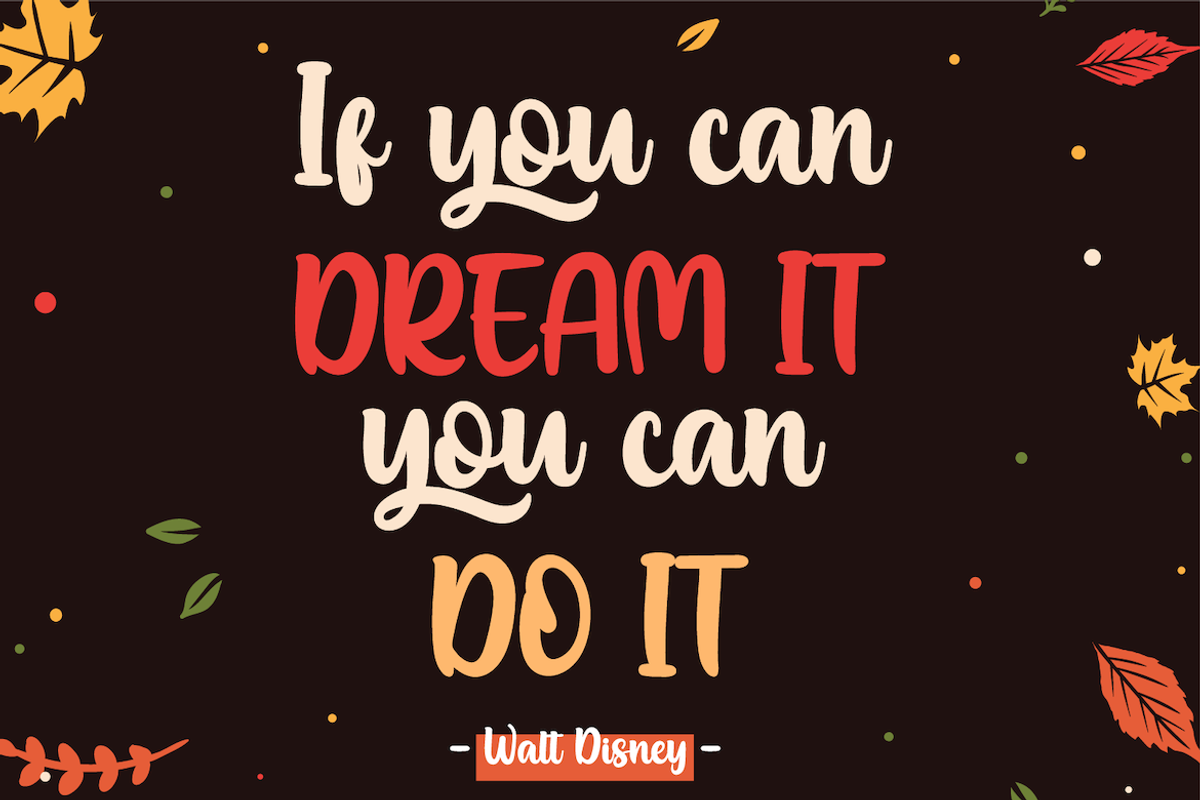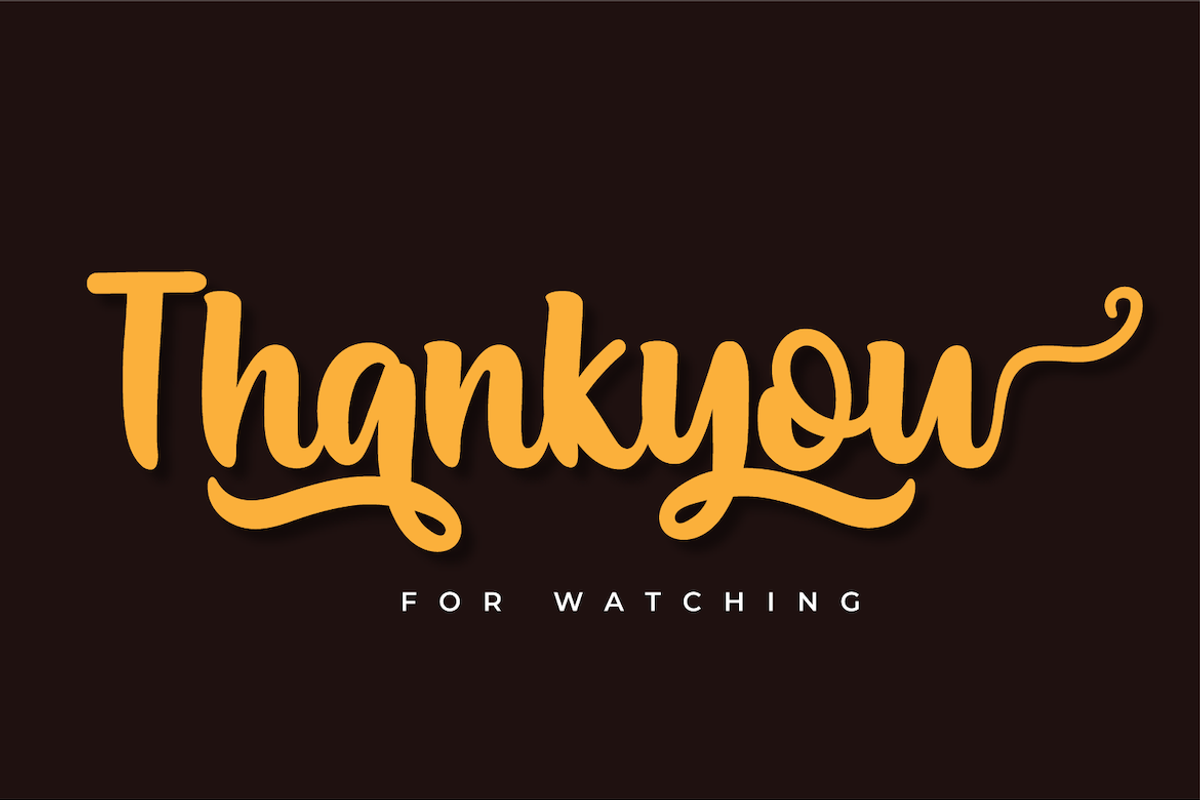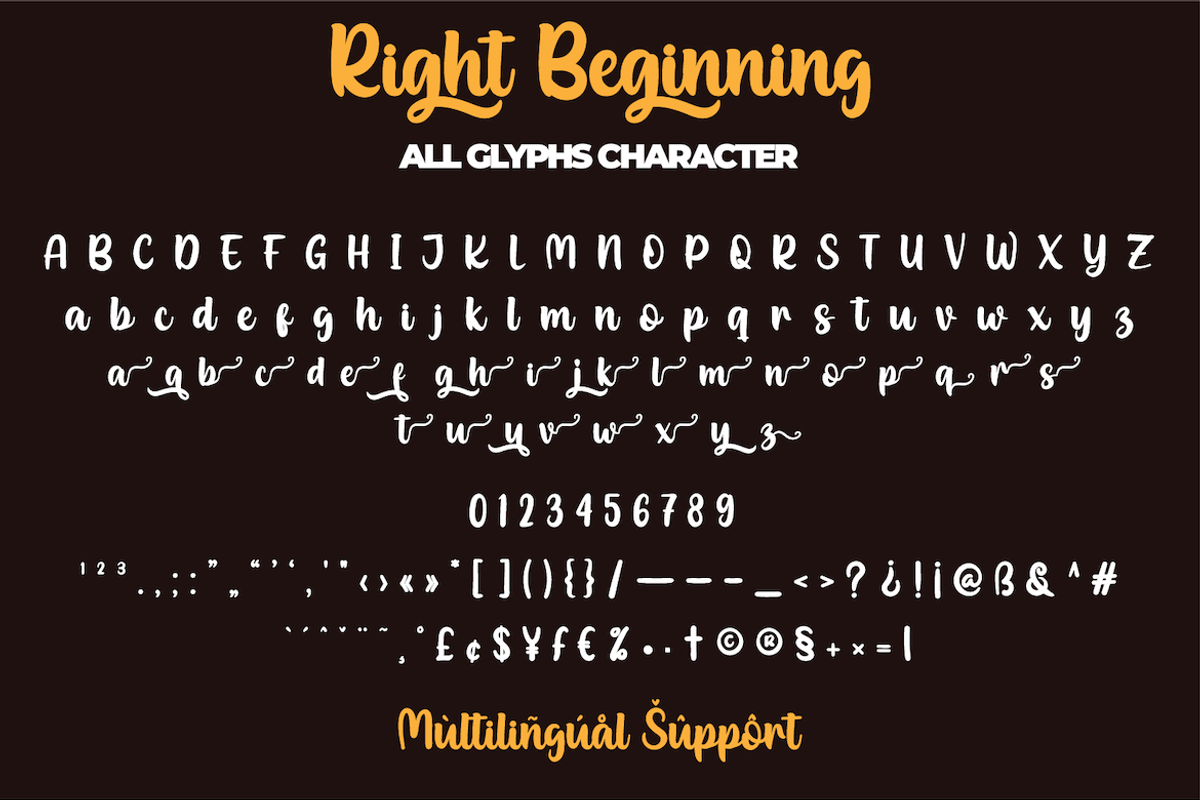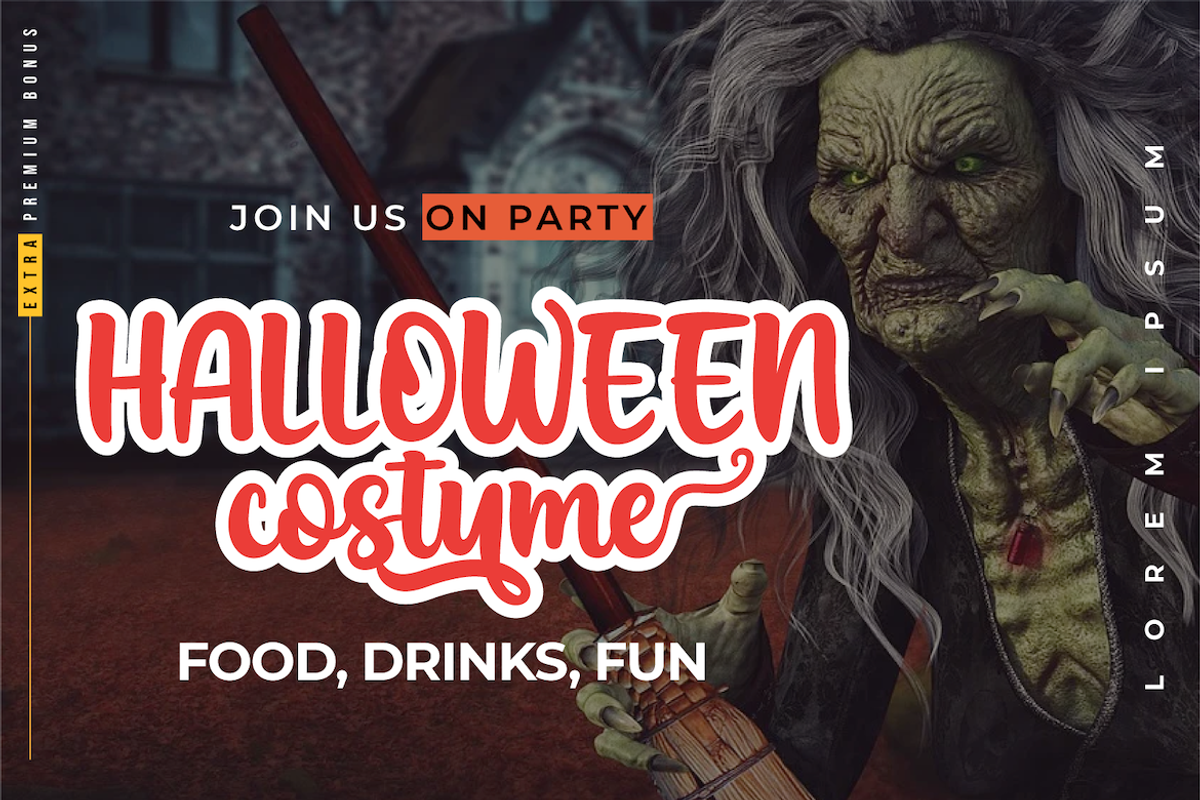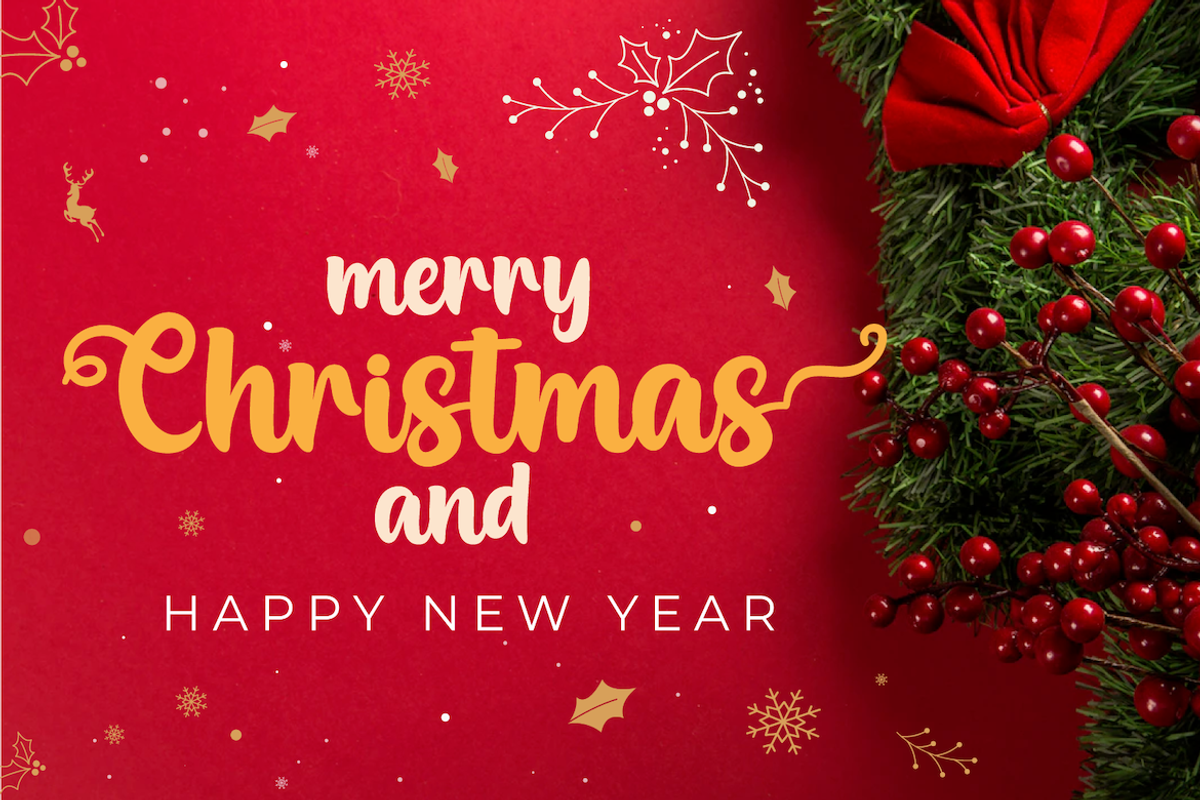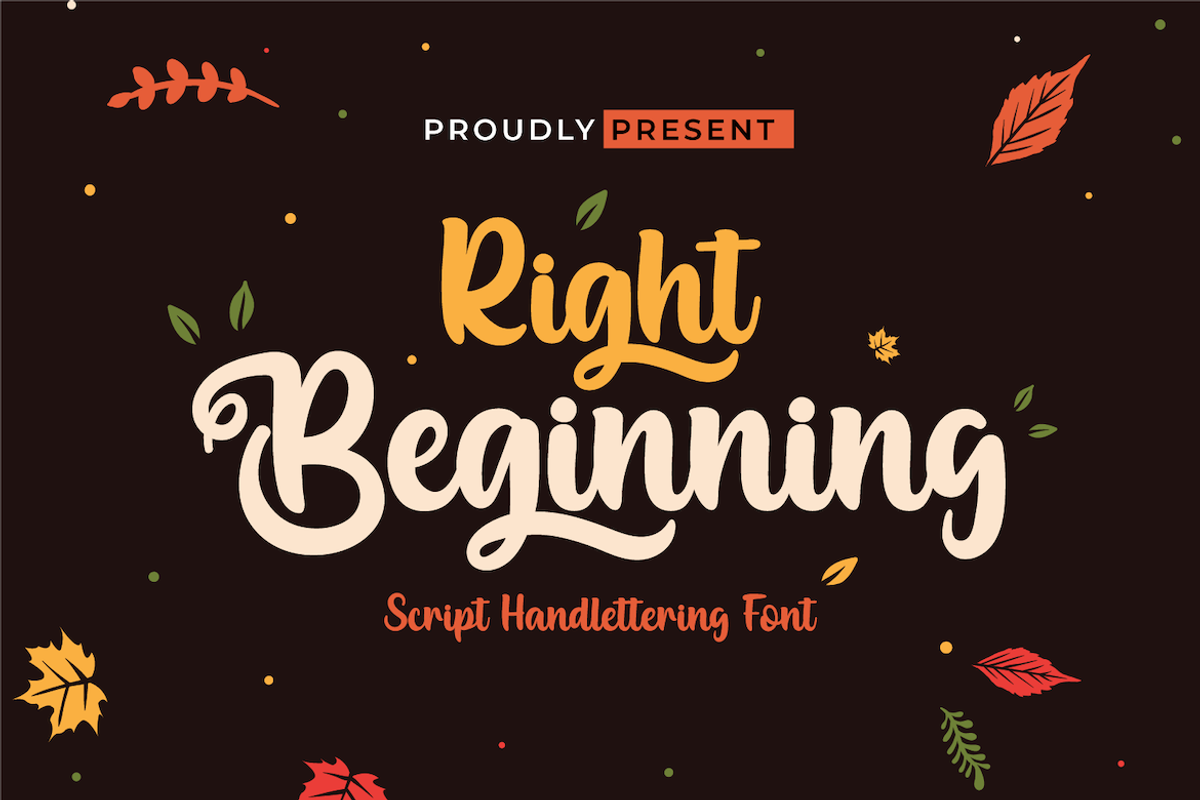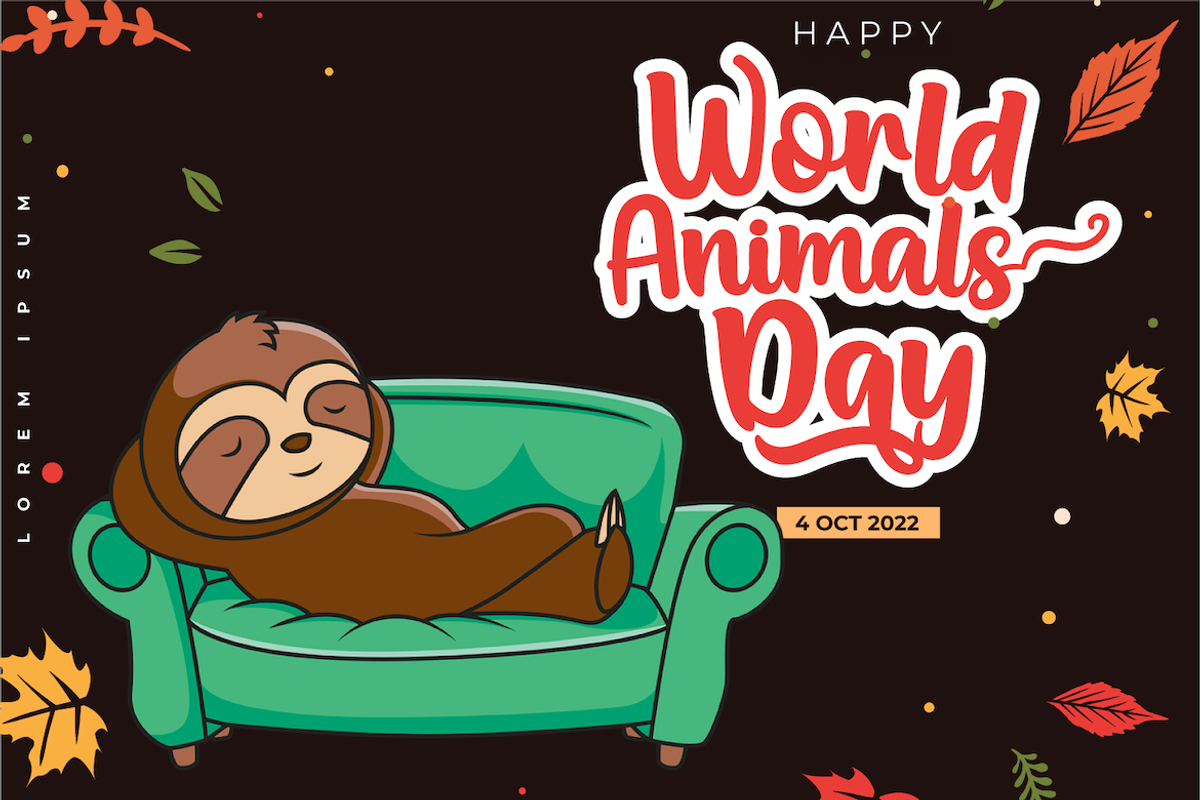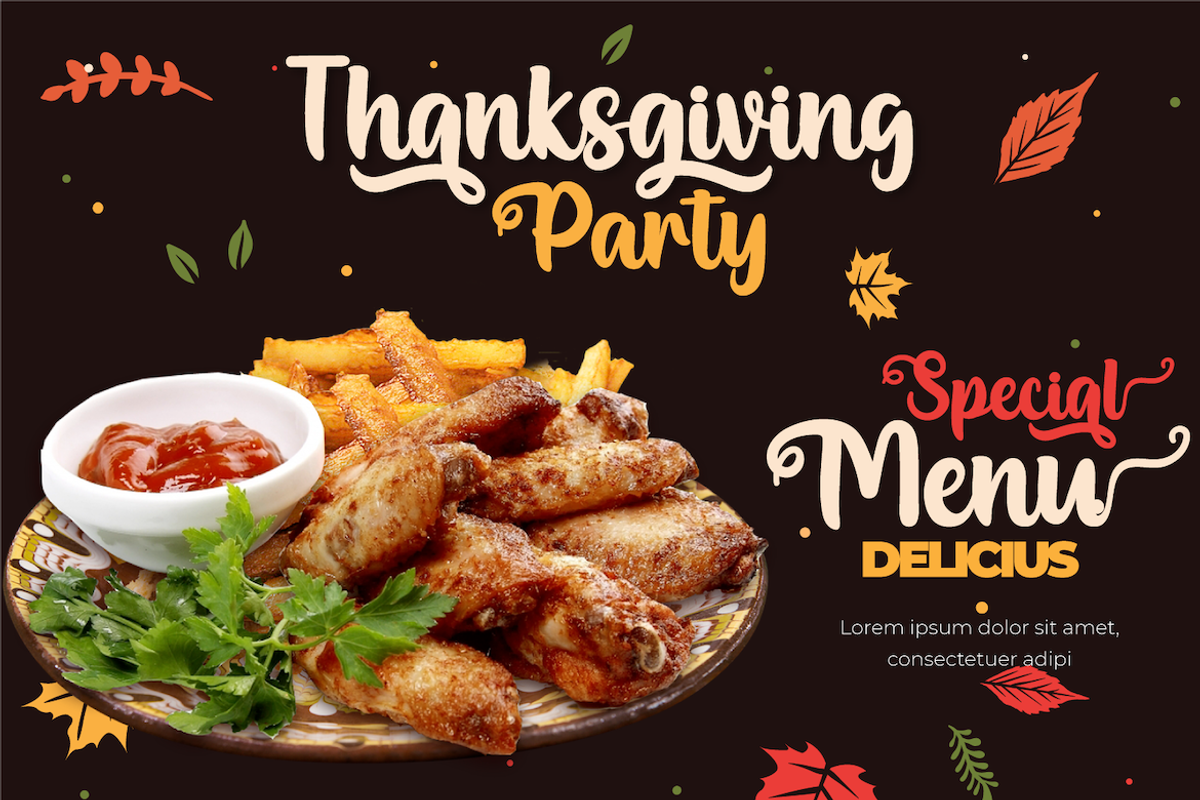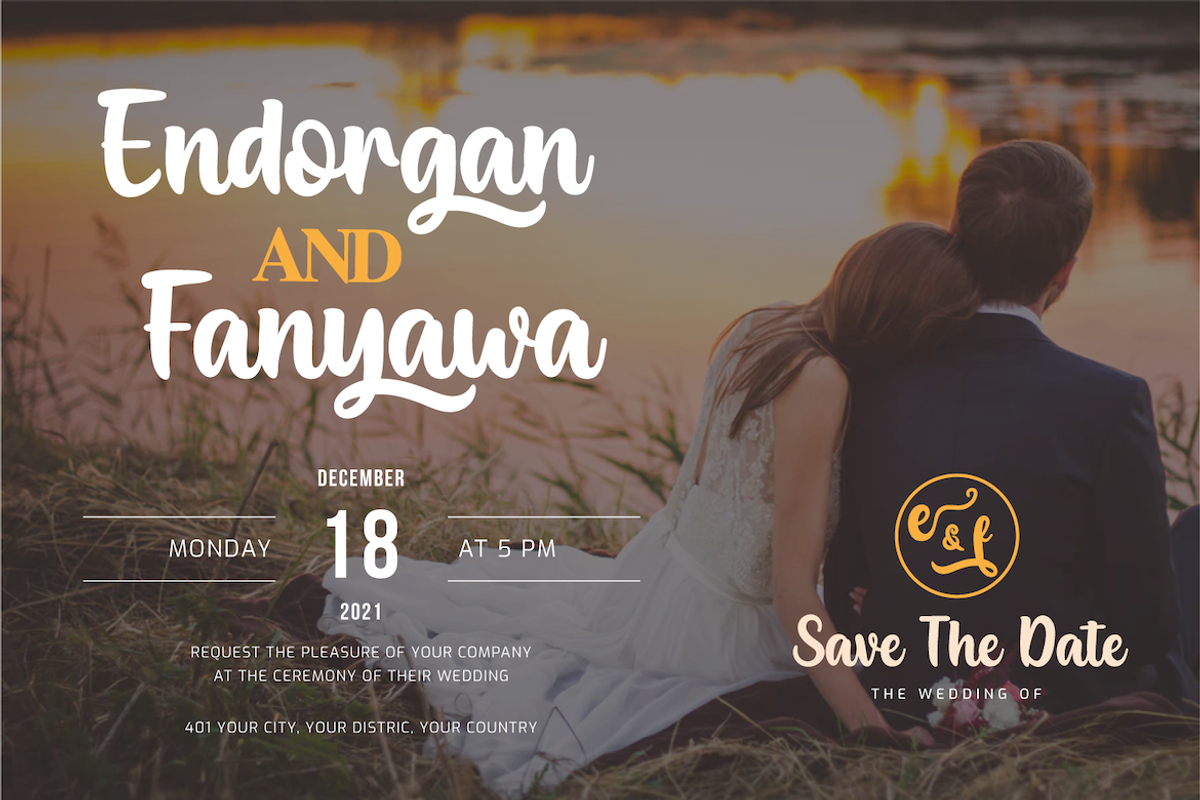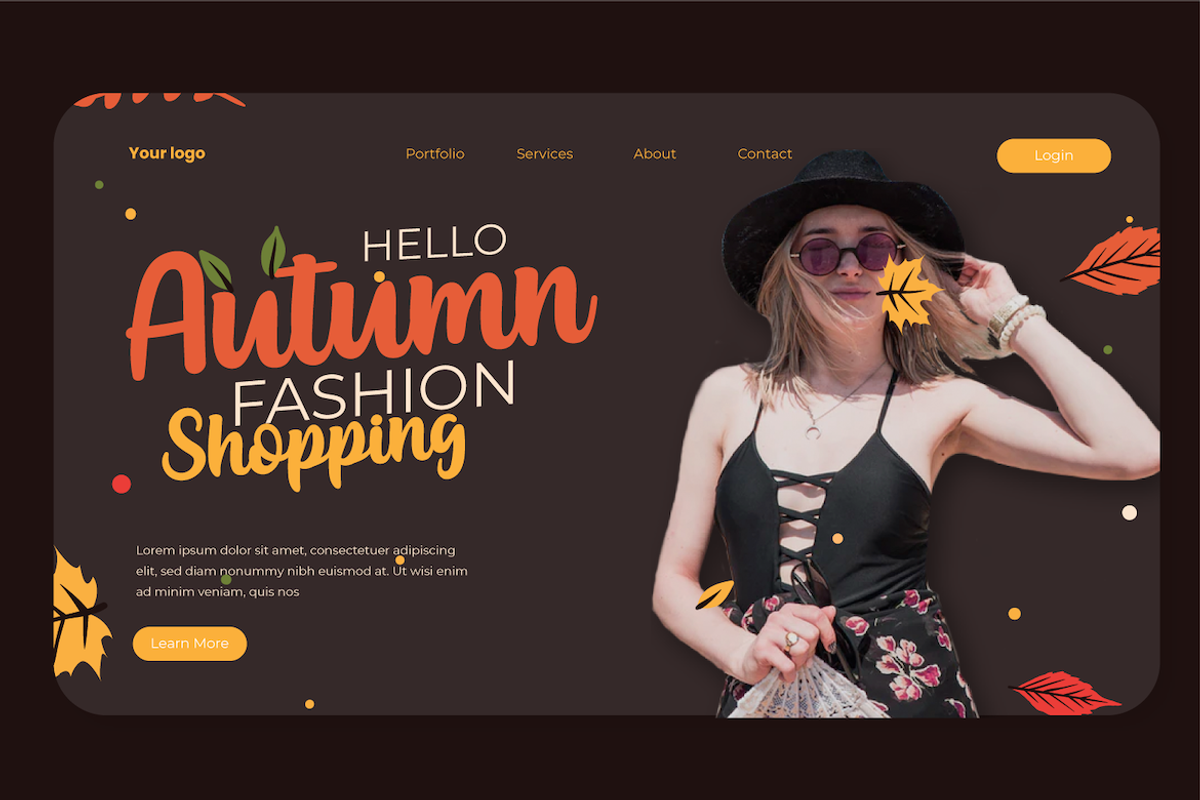
Right Beginning
Introducing our new Font called Right Beginning
Adorable and cute fonts, there are various variations in each upper and lowercase letter, making this font suitable for you to place and use in any of your projects or in any media you want, this font is surnamed script with cute and beautiful nuances. It also has a charming modern character, perfect for Halloween and Christmas nuances.
This charming font also offers the beauty of abstract typography harmony for a wide variety of design projects, including digital natural handwriting for designs, quote designs, for social media business designs, advertisements, trademarks, food and beverage promotion banners, text, posters, a signature, and all designs require handwriting or whatever design you want.